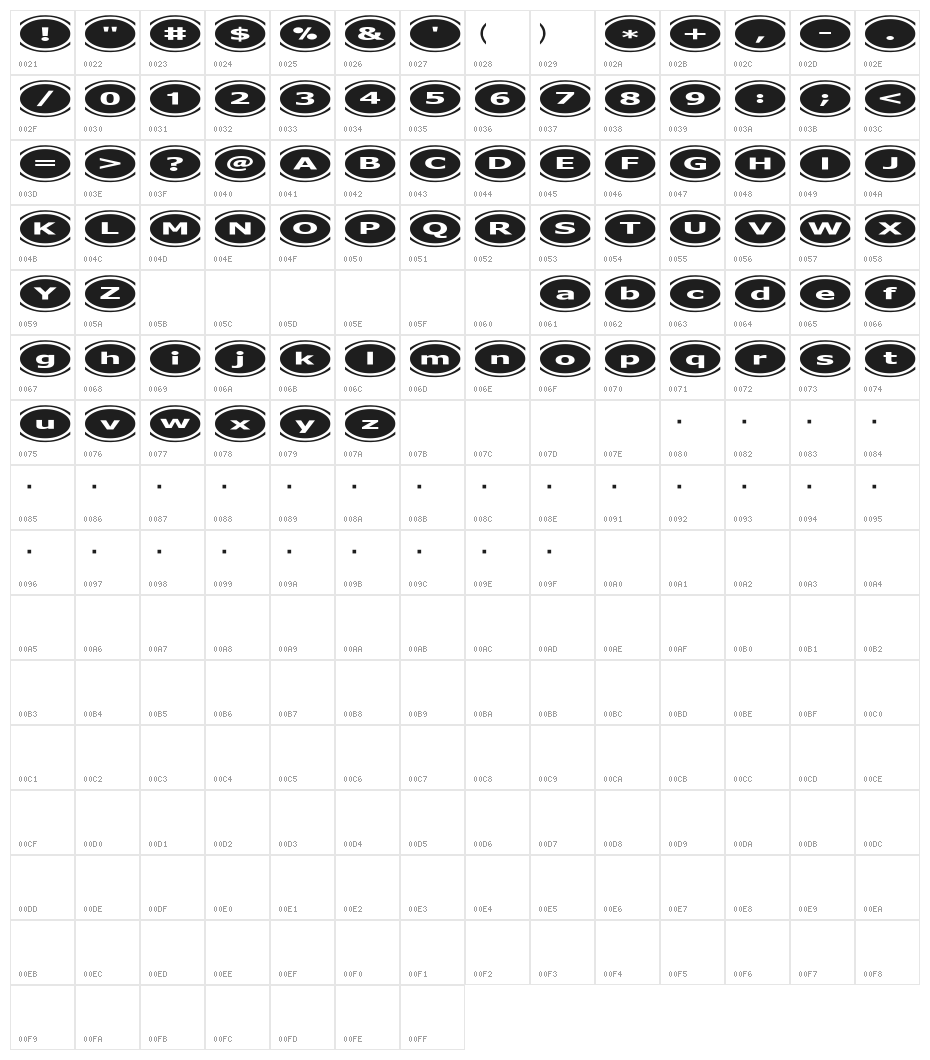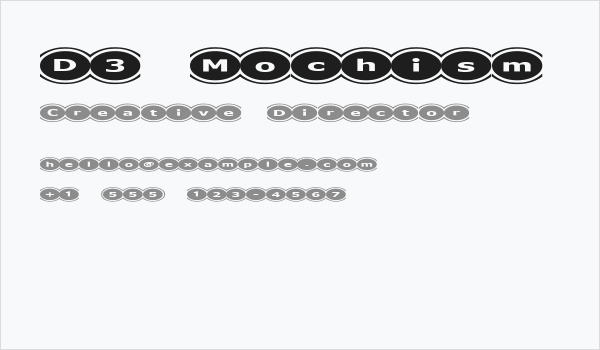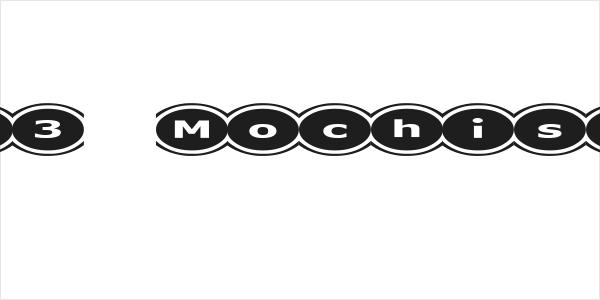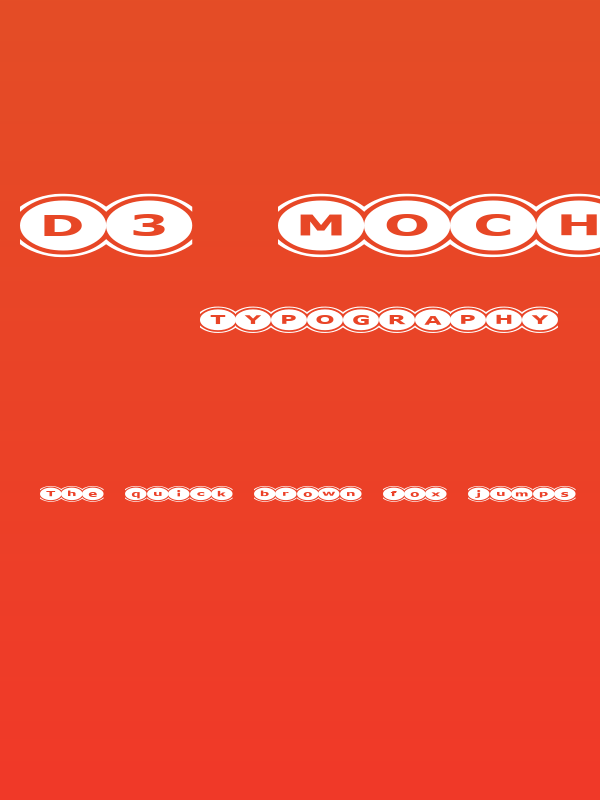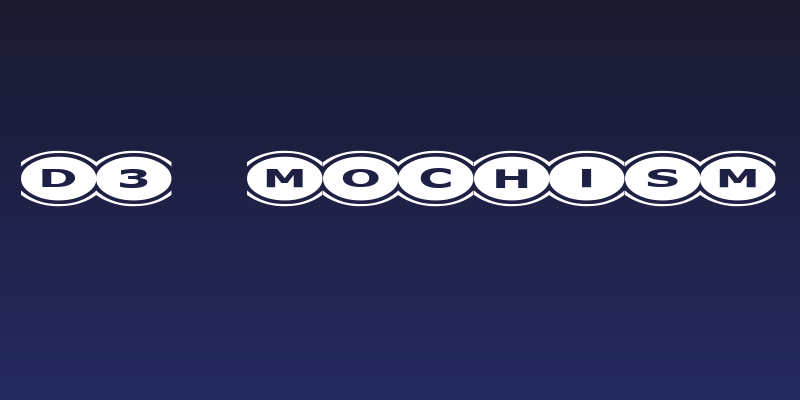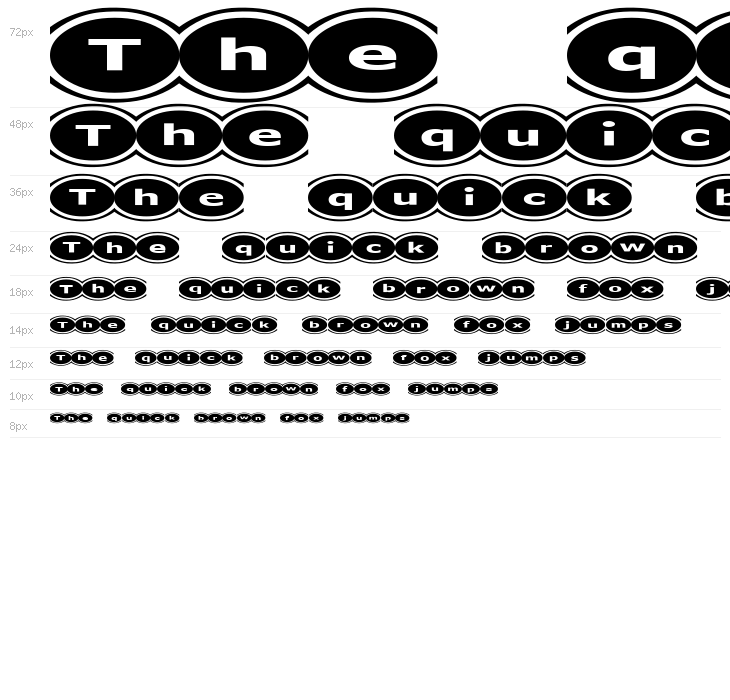
D3 Mochism Font
D3 Mochism Description
This font features a bold, modern design with each character enclosed in a circular shape, creating a unique and eye-catching appearance. The letters are uppercase and lowercase, along with numbers and special characters, all uniformly styled within these circles. The high contrast between the thick black outlines and the white interior of the circles makes each character stand out distinctly. This decorative style is both playful and striking, suitable for projects that require a strong visual impact.
| Use Case | Logos, Posters, Branding |
| Proposed Projects | Ideal for logos, posters, and branding materials that require a bold and playful aesthetic. |